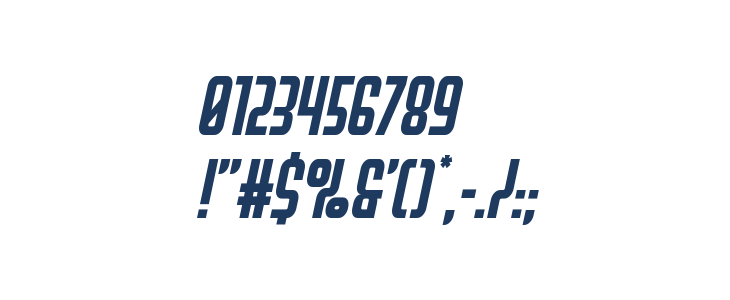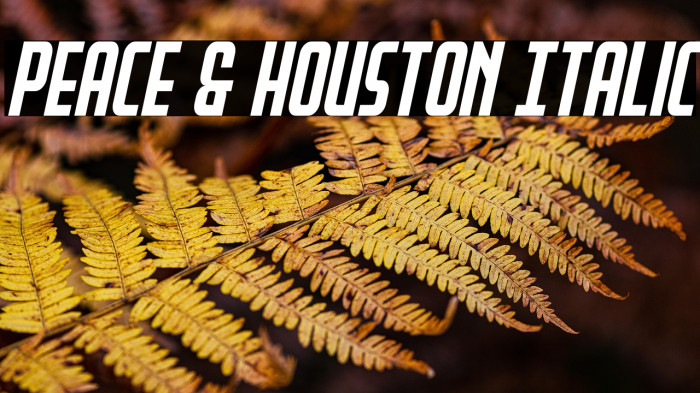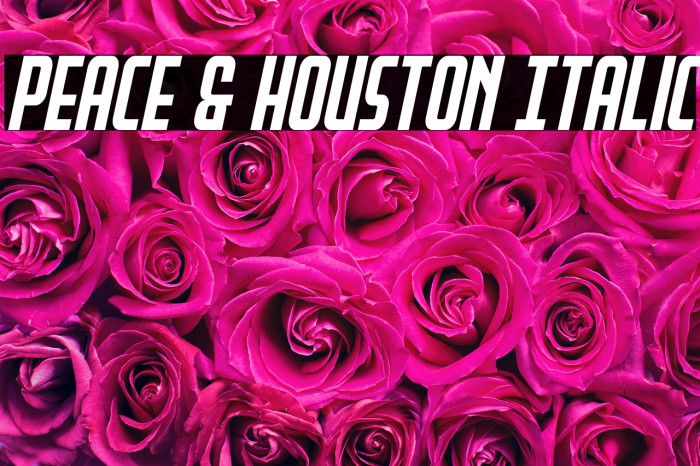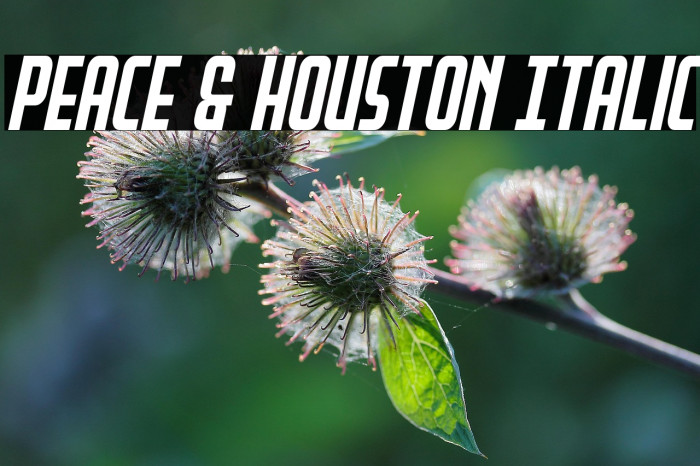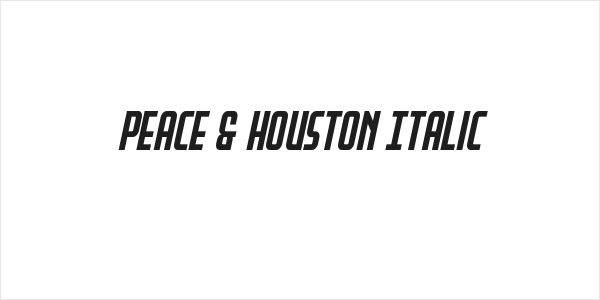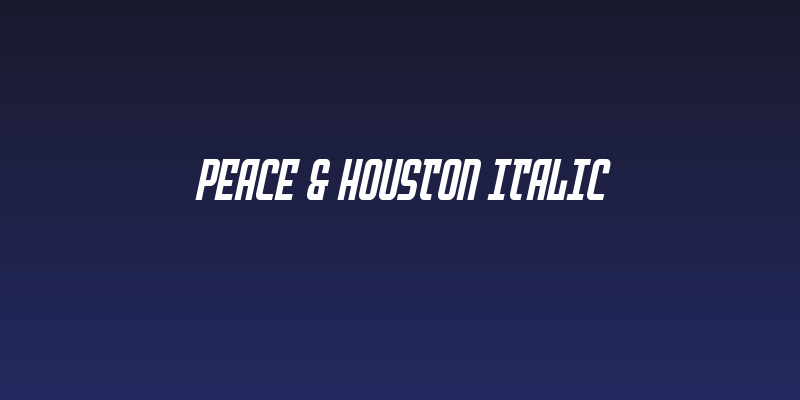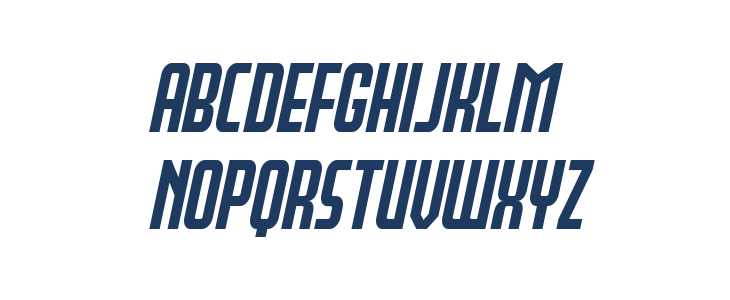
Peace & Houston Italic Font
Peace & Houston Italic Description
This font features a bold, italicized style with a modern and dynamic appearance. The characters are slightly condensed, giving a sleek and streamlined look. The strokes are consistent in weight, providing a uniform and cohesive feel across all letters and numbers. The angular design of the characters adds a sense of motion and energy, making it suitable for projects that require a contemporary and impactful aesthetic. The font includes a full set of uppercase and lowercase letters, numbers, and a variety of special characters, ensuring versatility in its application.